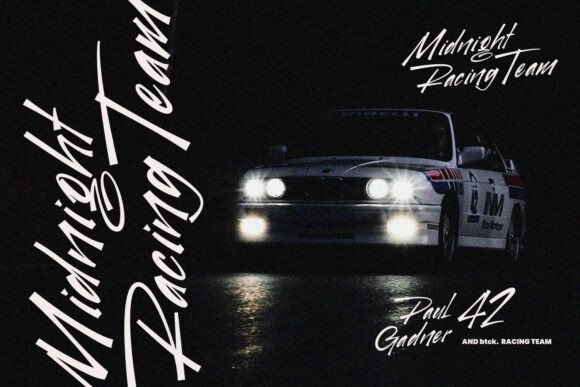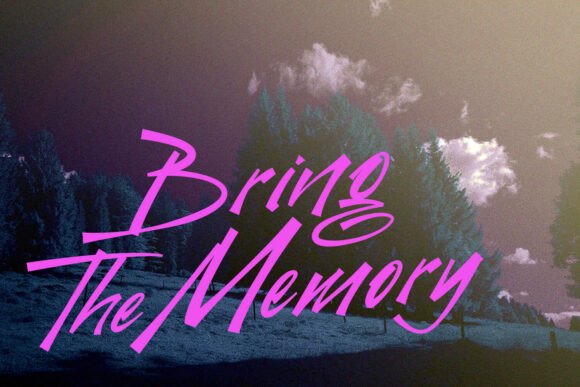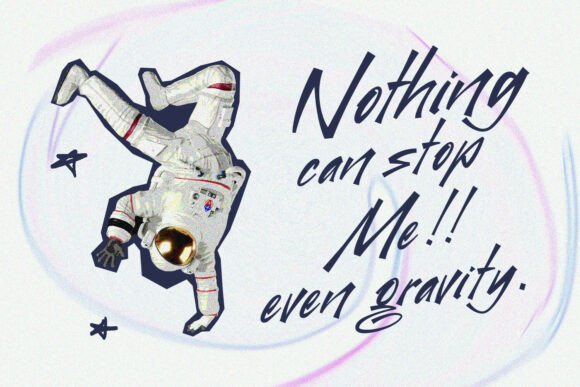
Introduction to Lyomgen Pattriget Font
There’s a moment when every creative project comes together – the spark that ignites the design process. For many, it’s the search for that perfect font that sets the tone for the entire project. Imagine browsing through a treasure trove of fonts, each one promising to elevate your design to the next level. And then, you stumble upon it – the Lyomgen Pattriget Font. Its edgy, handmade script style is impossible to ignore, with its dynamic brushstroke-inspired flow and slanted angles that exude boldness.
As a valuable resource for designers, Lyomgen Pattriget Font offers a unique blend of expressive calligraphy and modern edge. Whether you’re working on a logo, apparel design, or album cover, this font is sure to leave a lasting impression. With its high-quality design and transparent background, it’s perfect for free download and seamless integration into any project. The Lyomgen Pattriget Font is a game-changer for designers seeking a distinctive and personal touch for their creative endeavors.
Honest Review: Lyomgen Pattriget Font
As a designer, I’m always on the lookout for high-quality design resources to elevate my creative projects. Recently, I stumbled upon the Lyomgen Pattriget Font, and I’m excited to share my honest review.
Here are some things that work well: ✨ The font is incredibly versatile, making it perfect for a wide range of creative projects, from logo designs to digital artwork. Its sleek and modern aesthetic is sure to impress. Additionally, the font is available for free download, making it an excellent choice for designers on a budget. The transparent background feature is also a huge plus, allowing for seamless integration with any design.
However, there are some limitations to consider: ⚠️ The font may not be suitable for projects that require a more traditional or vintage feel. Additionally, the font’s complexity may make it difficult to customize for certain design applications.
Overall, I’m impressed with the Lyomgen Pattriget Font. Its high quality and versatility make it an excellent addition to any designer’s toolkit. While it may have some limitations, I believe it’s a great resource for designers looking to take their creative projects to the next level.
The Lyomgen Pattriget Font is perfect for various design projects, including logos, brochures, and social media graphics. Its unique style makes it an excellent choice for creative projects that require a touch of sophistication.